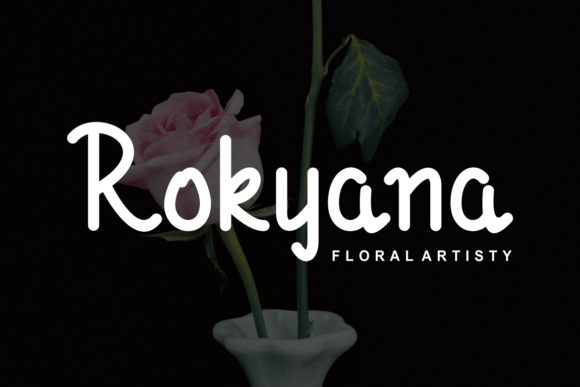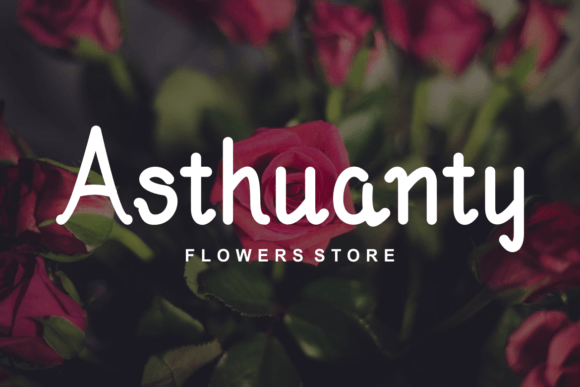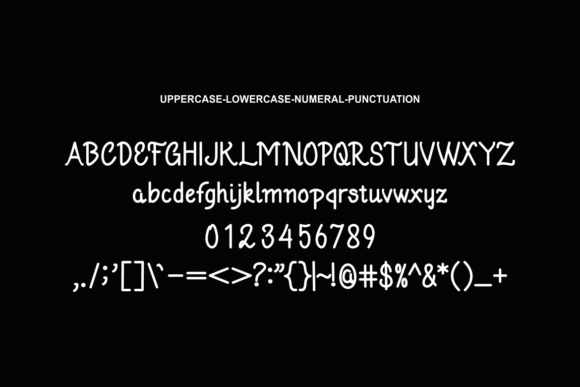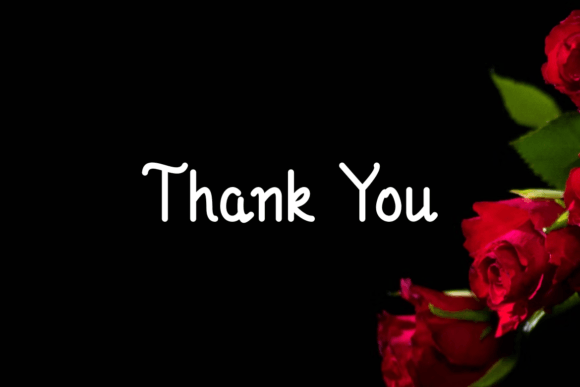
Introduction to Raccyna Schein Font
Introducing our new product **Raccyna Schein Font** – Modern Font is a bold and authentic display font.
The font is suitable for any branding project like logo, esport, and many more outstanding in a wide range of contexts.
Key Features of Raccyna Schein Font
Why Choose Raccyna Schein Font?
Raccyna Schein Font offers exceptional quality and versatility, making it a valuable addition to your design toolkit. Whether you’re creating for personal projects or commercial use, Raccyna Schein Font delivers professional results.